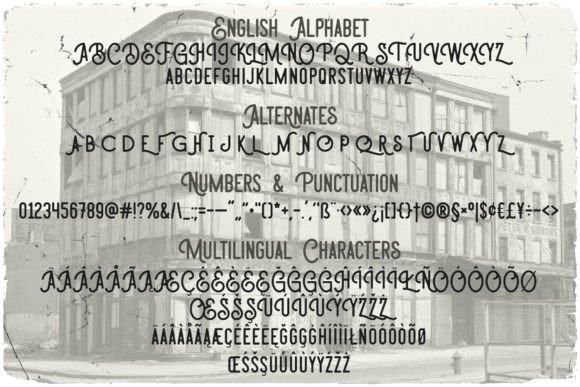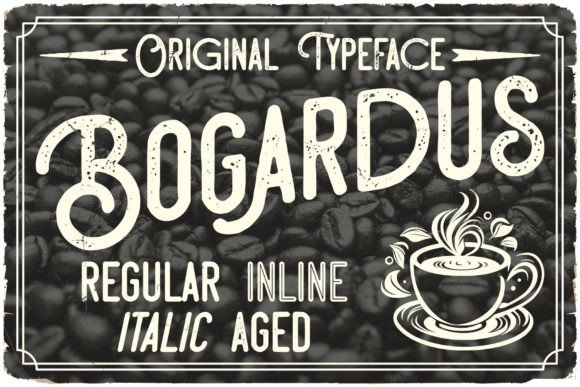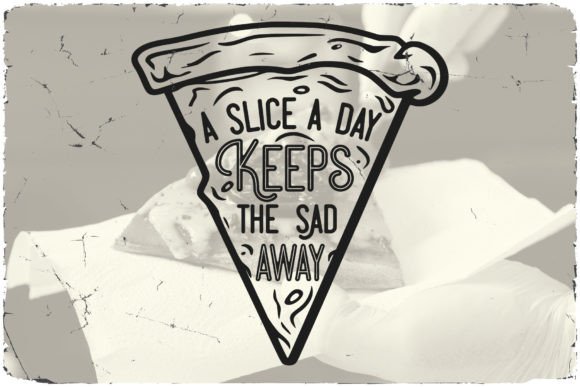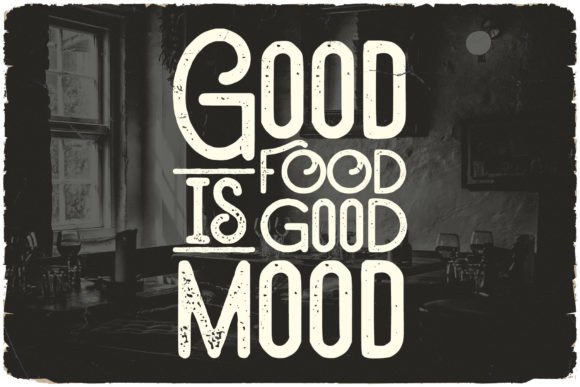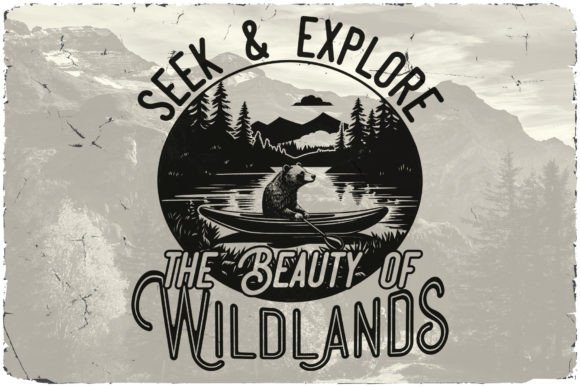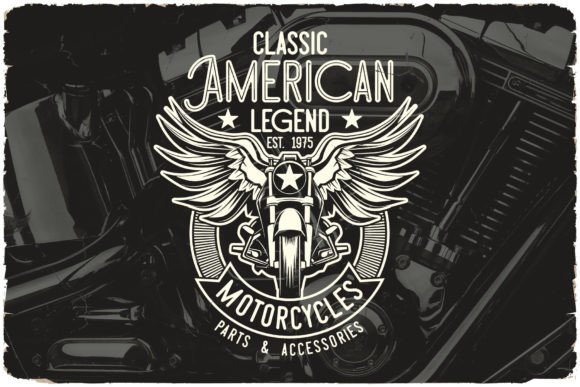
Bogardus Font: Elevate Your Design with Vintage Elegance
In the realm of typography, few fonts capture the essence of vintage aesthetics as effortlessly as Bogardus. Inspired by classic typography, this exquisite typeface is a masterful blend of intricate details and elegant curves, transporting designers and crafters to an era where craftsmanship and attention to detail reigned supreme. With its sophisticated charm and old-world allure, Bogardus is the perfect choice for those seeking to infuse their projects with a sense of heritage and tradition.
The Essence of Vintage Typography
Bogardus is more than just a font – it’s an experience. Each letter is carefully crafted to evoke a sense of nostalgia, with bold strokes that exude authority and authenticity. The font’s intricate details and elegant curves are reminiscent of a bygone era, where typography was an art form that required skill and precision. Whether you’re designing for a retro-inspired project or simply looking to add a touch of vintage elegance, Bogardus brings a level of sophistication that’s hard to match.
Perfect for Labels, Branding, Packaging, and Signage
Bogardus is a versatile font that’s suitable for a wide range of applications, including labels, branding, packaging, and signage. Its bold, yet elegant design makes it perfect for creating eye-catching headlines, while its intricate details add a level of depth and visual interest to any project. Whether you’re designing for a luxury brand or a small business, Bogardus is sure to make a lasting impression.
One of the standout features of Bogardus is its PUA (Private Use Area) encoding. This means that designers and crafters can access all of the font’s amazing glyphs and ligatures with ease, making it simple to incorporate into their projects. With PUA encoding, you can unlock the full potential of Bogardus and take your typography to the next level.
Why Choose Bogardus?
So why choose Bogardus over other fonts? Here are just a few reasons why this exceptional typeface stands out from the crowd:
- Vintage elegance: Bogardus captures the essence of vintage typography, with intricate details and elegant curves that evoke a sense of nostalgia and sophistication.
- Versatility: This font is suitable for a wide range of applications, from labels and branding to packaging and signage.
- PUA encoding: With PUA encoding, you can access all of the font’s glyphs and ligatures with ease, making it simple to incorporate into your projects.
- Authority and authenticity: Bogardus’s bold strokes create a sense of authority and authenticity, making it perfect for brands and businesses looking to establish a strong identity.
Tips for Using Bogardus
To get the most out of Bogardus, here are a few tips to keep in mind:
- Use it sparingly: Bogardus is a bold font, so use it sparingly to create visual interest and emphasis.
- Experiment with colors: Try pairing Bogardus with different colors to create a unique and eye-catching effect.
- Mix and match: Combine Bogardus with other fonts to create a unique and visually appealing typography.
In conclusion, Bogardus is a truly exceptional font that’s perfect for designers and crafters looking to add a touch of vintage elegance to their projects. With its intricate details, elegant curves, and bold strokes, this font is sure to make a lasting impression. Whether you’re designing for a retro-inspired project or simply looking to elevate your typography, Bogardus is a must-have font that’s sure to delight.